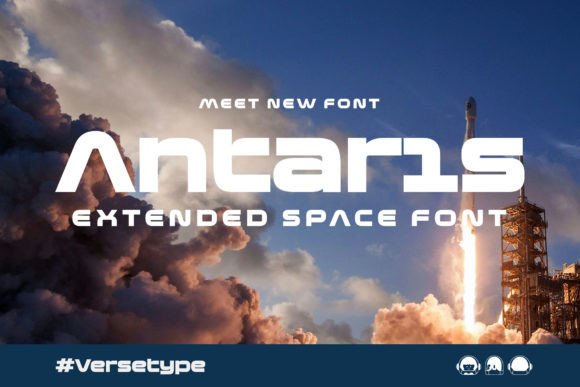
Introducing Antaris: The Bold and Futuristic Font You Need
I’ll never forget the design project that led me to discover Antaris. I was working on a futuristic branding campaign for a tech startup, and I was struggling to find the perfect font. The client wanted something bold, modern, and attention-grabbing, but also readable and professional. After hours of searching, I stumbled upon Antaris, and it was love at first sight. In this article, I’ll share my experience with this amazing font, its features, and how to make the most of it in your designs.
A Personal Review of Antaris
What I Love About Antaris ✨
- ✅ Bold and extended style: Antaris has a confident and striking presence that demands attention.
- ✅ Techno-futuristic flair: The font’s sharp edges and sleek lines evoke a sense of innovation and forward thinking.
- ✅ Readability: Despite its bold style, Antaris remains surprisingly readable, even at smaller sizes.
- ✅ Versatility: This font is perfect for a wide range of design applications, from branding and posters to display text and headlines.
- ⚠️ Limited use for body text: Due to its bold style, Antaris is best suited for headlines and titles rather than body text.
- ⚠️ May not be suitable for formal or traditional designs: Antaris’s futuristic style may not be the best fit for more conservative or traditional design projects.
- Experiment with Antaris’s OpenType features, such as glyphs and stylistic alternates, to add more visual interest to your design.
The Backstory of Antaris
Antaris was designed by a team of typographers who wanted to create a font that would capture the essence of modern technology. Inspired by the sleek lines and futuristic shapes of sci-fi movies and video games, Antaris was born. The font’s designers aimed to create a bold and attention-grabbing style that would be perfect for branding, posters, and display text.
Q: What is Antaris?
Antaris is a bold and extended font with a techno-futuristic flair, perfect for branding, posters, and display text.
Q: What design applications is Antaris best suited for?
Antaris is perfect for a wide range of design applications, including branding, posters, display text, and headlines.
Q: Can I use Antaris for body text?
While Antaris is a beautiful font, it’s best suited for headlines and titles rather than body text due to its bold style.
Q: Is Antaris easy to read?
Yes, despite its bold style, Antaris remains surprisingly readable, even at smaller sizes.